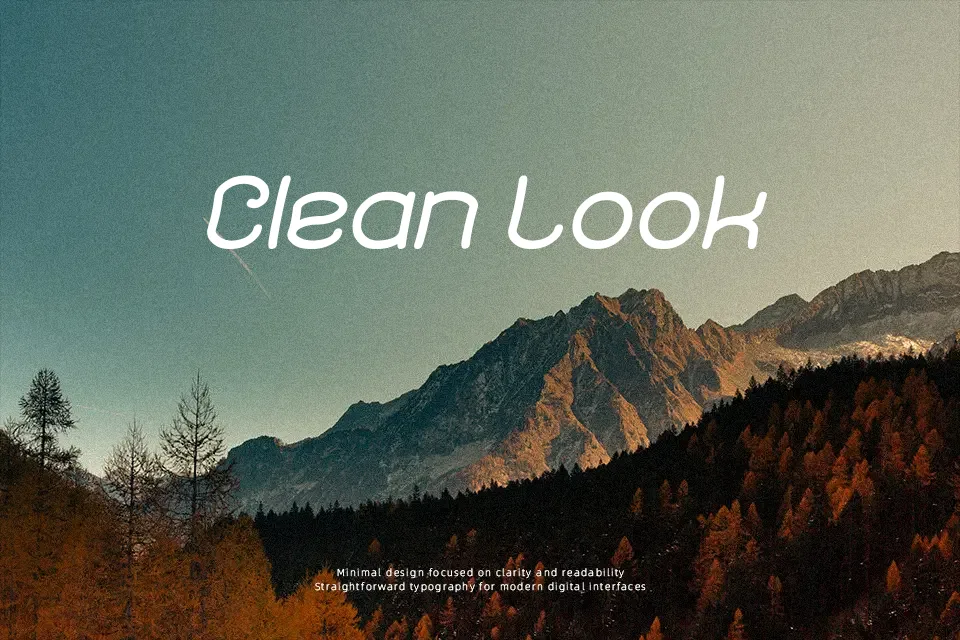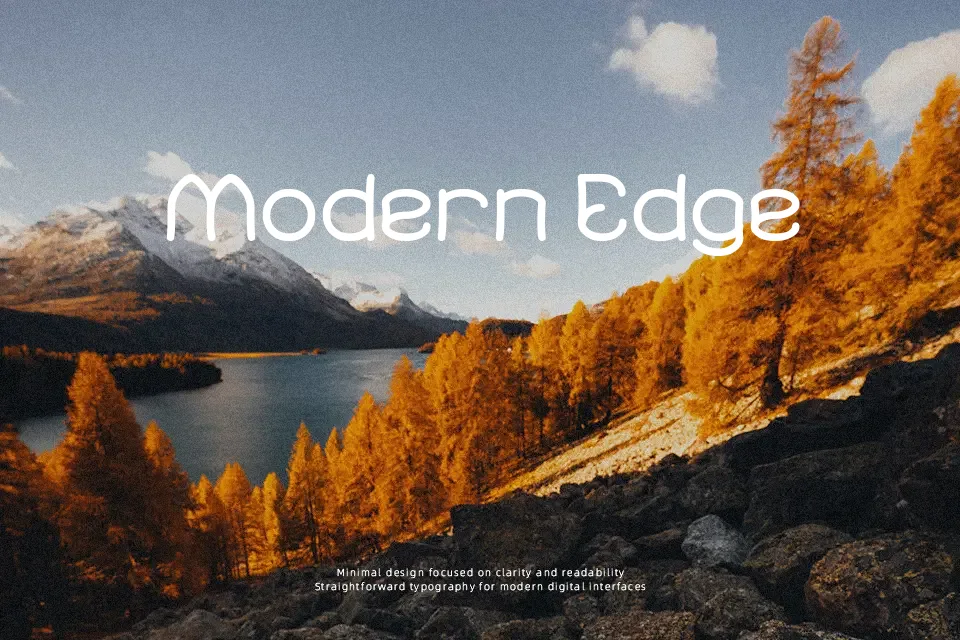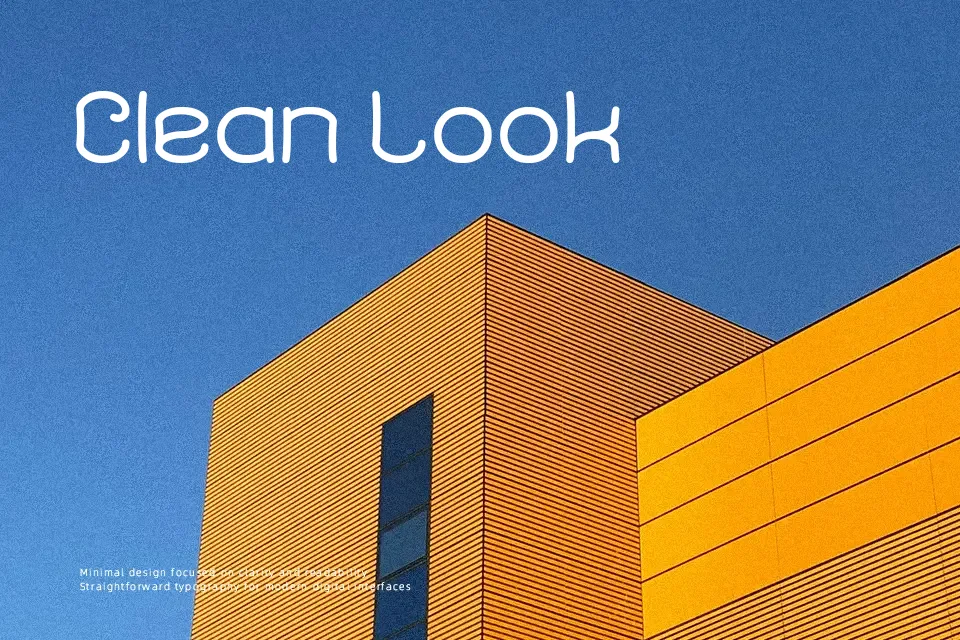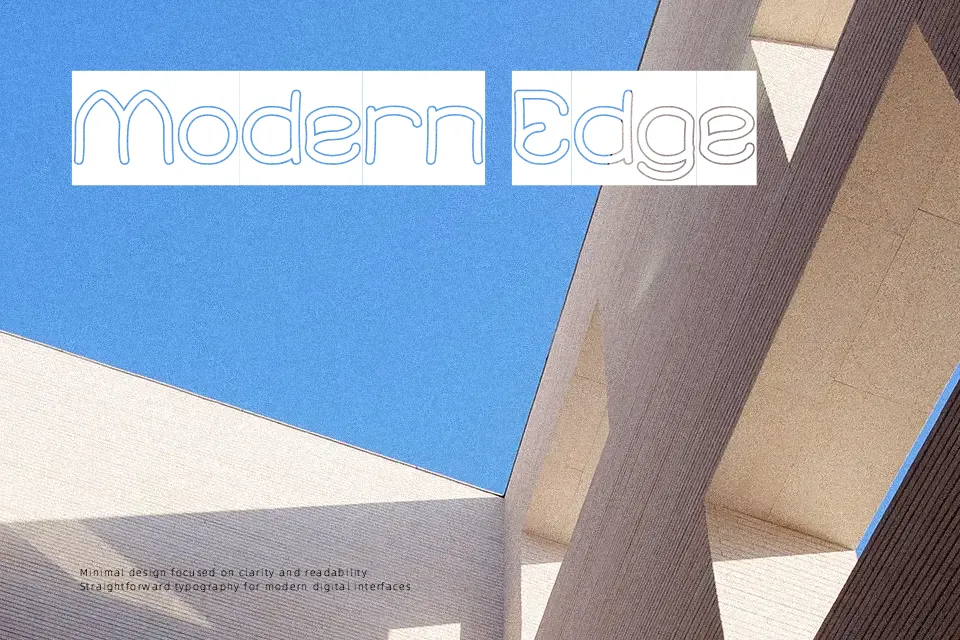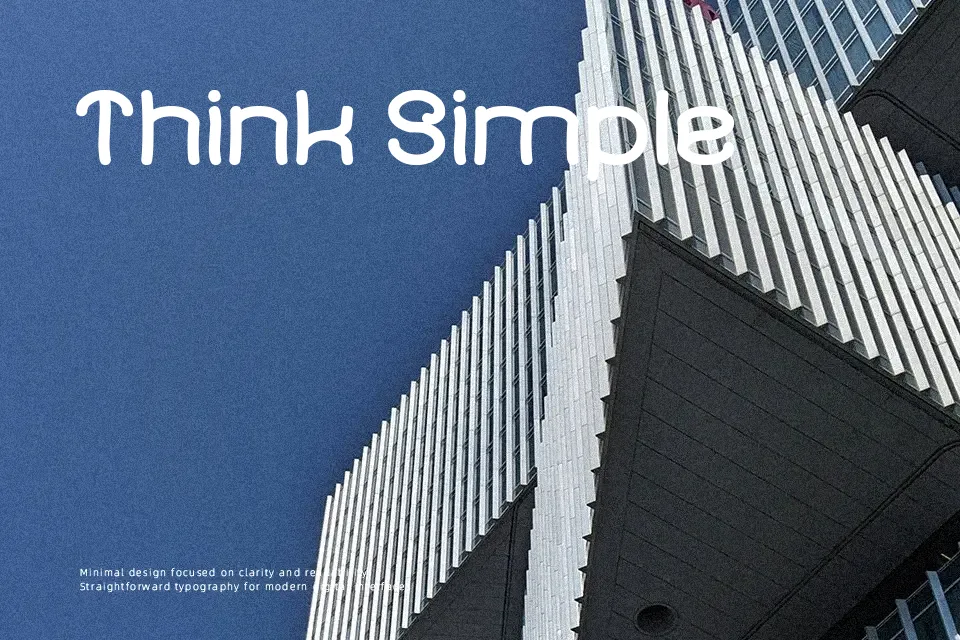
Soup Recipe Font
Soup Recipe Font works as a playful display face built around soft curves, rounded forms, and an informal visual rhythm. The available light, bold, italic, hollow, and inverse variants make it practical for layered headlines and compact branding applications. Its proportions are suited to short words and large type, where the character shapes remain easy to recognize and the heavier cuts hold attention. The typeface is most effective when given room in a layout rather than tightly packed into small text. It is less comfortable for continuous reading, dense information, or small captions.
Best For: restaurant signage,food packaging,menu headers,poster headlines
Not Ideal For: long paragraph text,legal documents,technical manuals,small interface labels
Perfect for headline, packaging, and poster, with a bold and decorative style.